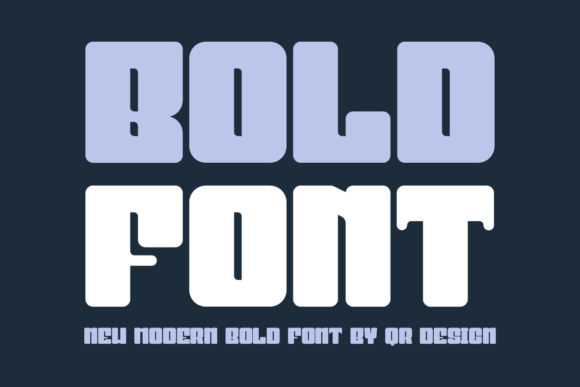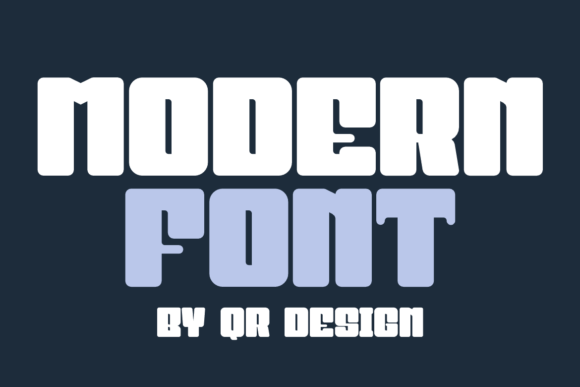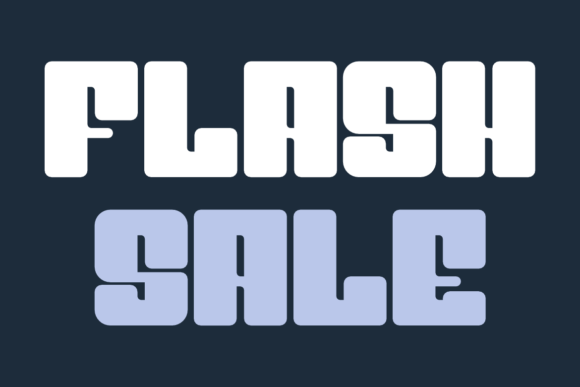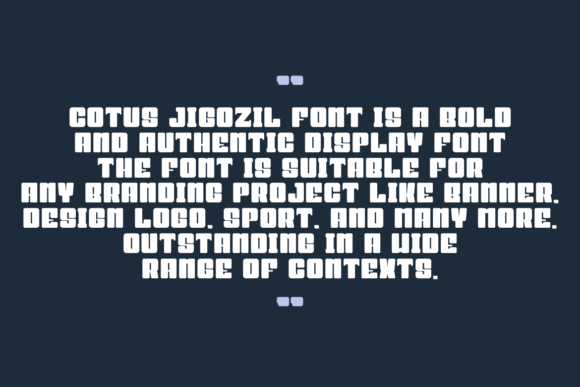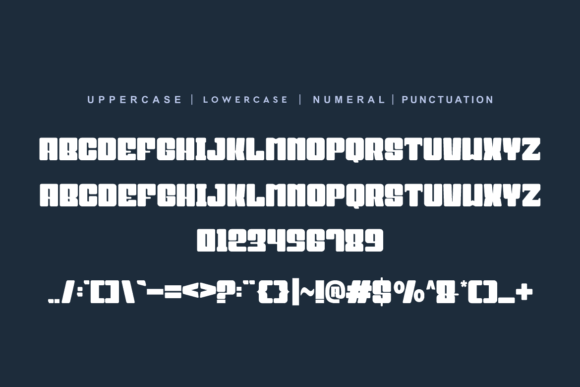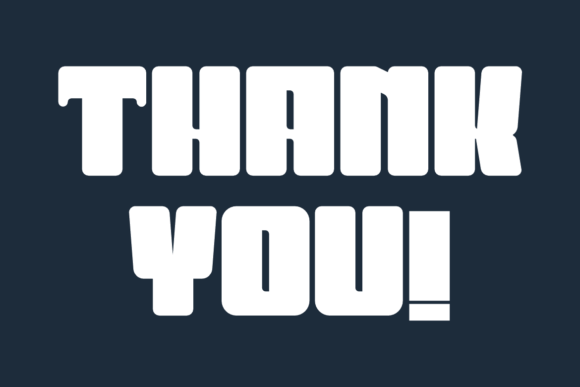
Cotus Jigozil Font: Elevate Your Designs with a Bold and Authentic Display Font
In the world of typography, fonts play a crucial role in conveying the tone and personality of a brand. For designers and crafters looking for a bold and authentic display font, Cotus Jigozil Font is an excellent choice. This versatile font is suitable for a wide range of branding projects, including logos, t-shirt printing, sports, and many more. In this article, we’ll dive into the features and benefits of Cotus Jigozil Font and explore how it can elevate your designs.
What is Cotus Jigozil Font?
Cotus Jigozil Font is a bold and authentic display font designed to make a statement. Its unique and eye-catching design makes it perfect for projects that require a strong visual impact. The font’s bold and confident appearance ensures that your message gets noticed, whether it’s used for a logo, headline, or promotional material.
Key Features of Cotus Jigozil Font
- Bold and Authentic Design: Cotus Jigozil Font boasts a bold and authentic design that exudes confidence and sophistication.
- Versatile: This font is suitable for a wide range of branding projects, including logos, t-shirt printing, sports, and more.
- High-Quality: Cotus Jigozil Font is a high-quality font designed to deliver exceptional results in various contexts.
- Easy to Read: Despite its bold design, Cotus Jigozil Font remains easy to read, making it perfect for headlines and promotional materials.
Benefits of Using Cotus Jigozil Font
So, why choose Cotus Jigozil Font for your design projects? Here are some benefits of using this exceptional font:
- Stand Out from the Crowd: With Cotus Jigozil Font, you can create designs that stand out from the competition and grab attention.
- Professional Look: This font gives your designs a professional and polished look, perfect for branding projects.
- Flexibility: Cotus Jigozil Font can be used in various contexts, from logos and t-shirt printing to sports and more.
- Easy to Pair: This font pairs well with other fonts, making it easy to create harmonious and visually appealing designs.
How to Use Cotus Jigozil Font
Using Cotus Jigozil Font is straightforward. Here are some tips to get you started:
- Logos: Use Cotus Jigozil Font to create bold and memorable logos that represent your brand.
- T-Shirt Printing: This font is perfect for t-shirt printing, adding a professional touch to your designs.
- Sports: Cotus Jigozil Font is suitable for sports-related projects, such as team logos, jerseys, and promotional materials.
- Headlines: Use this font to create attention-grabbing headlines for your website, social media, or marketing materials.
Cotus Jigozil Font is a bold and authentic display font that can elevate your designs and help you stand out from the competition. Its versatility, high-quality design, and ease of use make it an excellent choice for designers and crafters. Whether you’re working on a logo, t-shirt printing, sports, or other branding projects, Cotus Jigozil Font is sure to deliver exceptional results. Try it out today and take your designs to the next level!